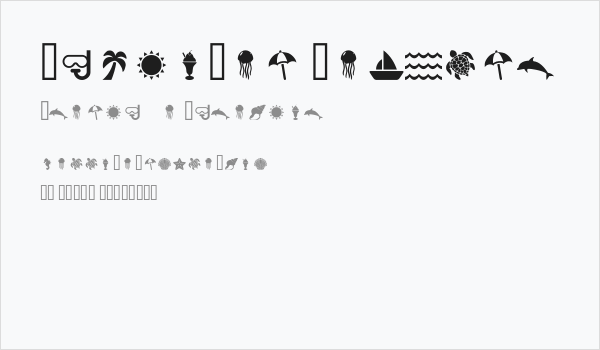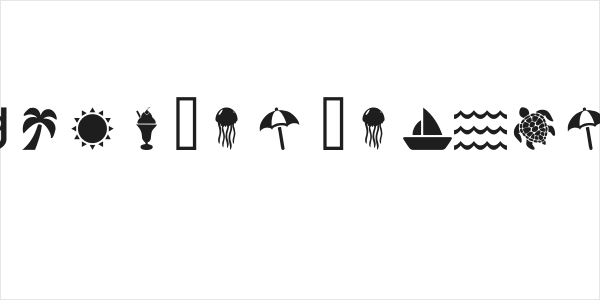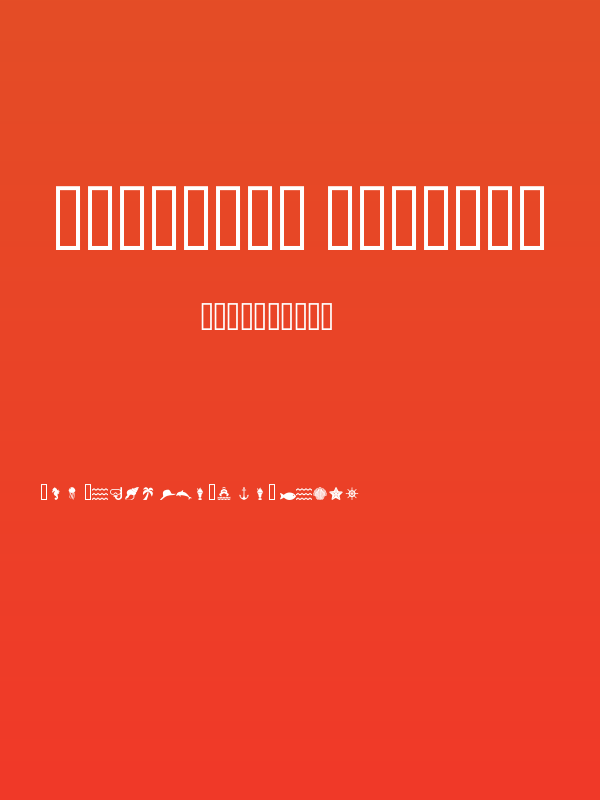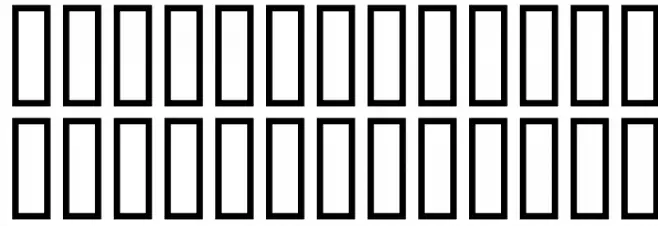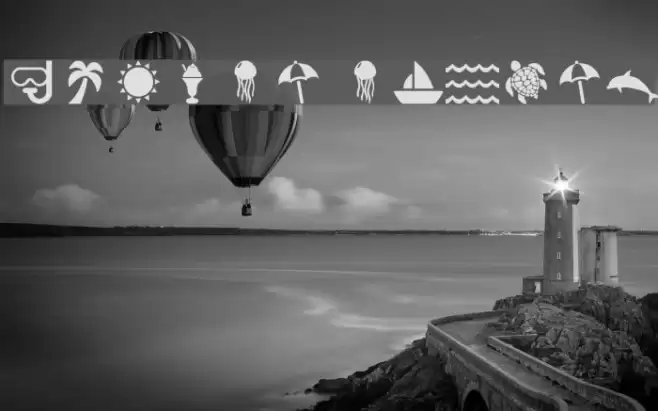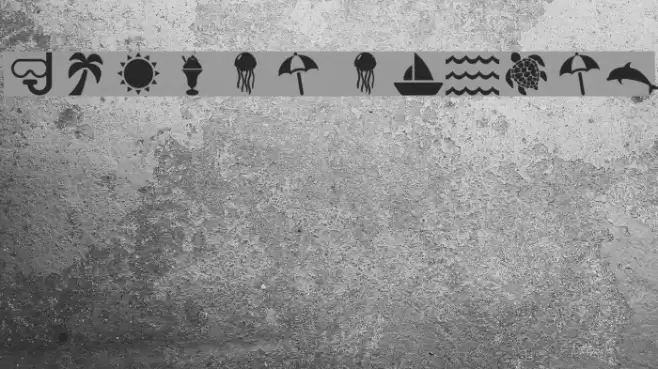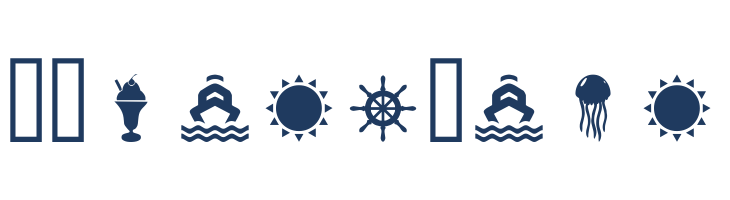
PiktoTea Regular Font
PiktoTea Regular Description
A collection of playful, bold pictograms featuring beach and sea-themed icons such as umbrellas, hats, shells, sea animals, boats, and waves, rendered in solid black silhouettes with simple, easily recognizable shapes.
| Overall Style | Playful, Decorative |
| Use Case | Icons, Decorative elements, Themed graphics |
| Proposed Projects | Summer event posters, children's books, travel brochures, beach signage, themed party invitations. |